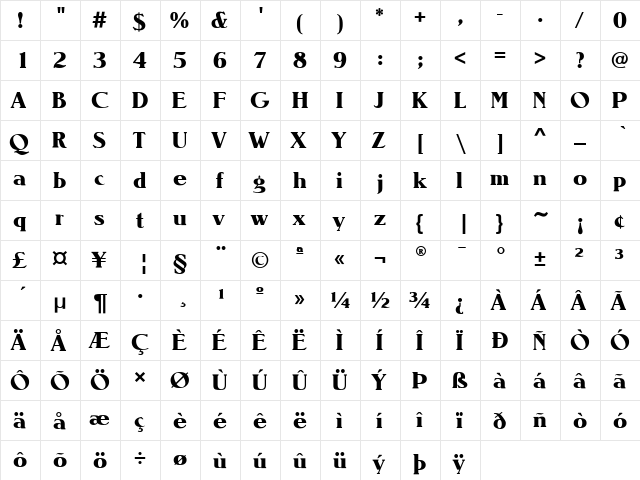
NevadaEF Regular
Design Context for NevadaEF Typeface
NevadaEF offers clean, dependable letterforms without strong stylistic allegiance, making it a practical choice for designers who need flexibility.
Pro Tip: Pair NevadaEF with a font of contrasting weight or personality to build a more expressive typographic hierarchy.